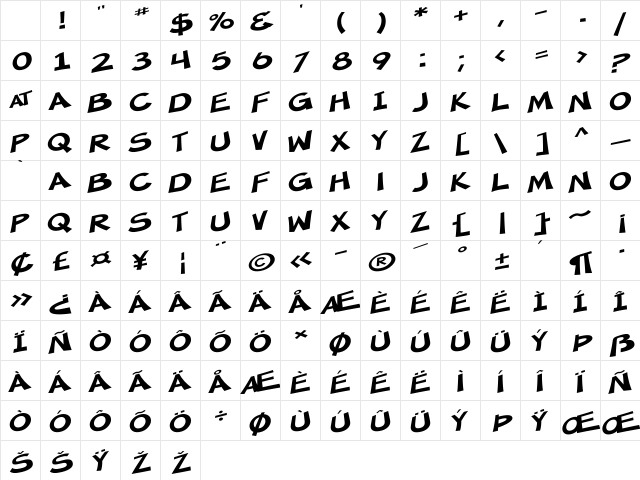
Complete SF Minced Meat Extended Regular glyph index. Displaying only characters natively supported by SF Minced Meat Extended Regular font.
SF Minced Meat Extended is a composed and adaptable typeface that performs quietly and consistently across a wide range of design contexts.